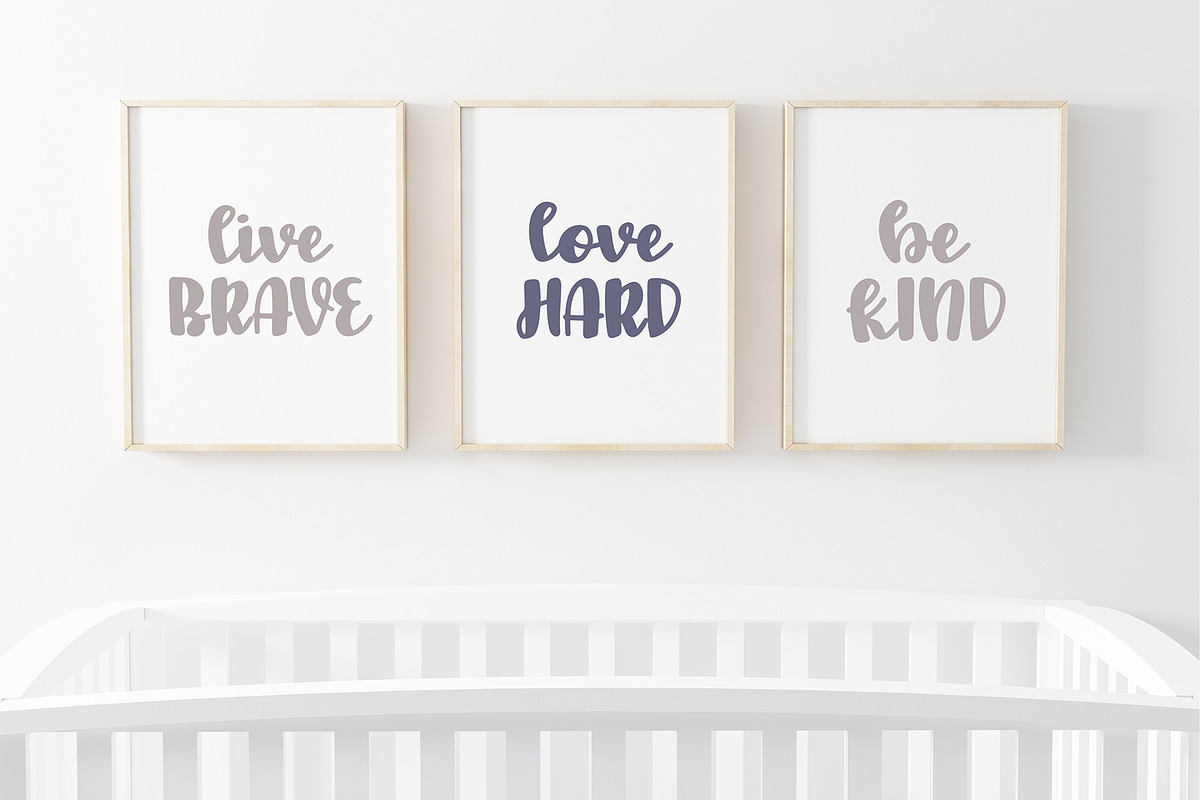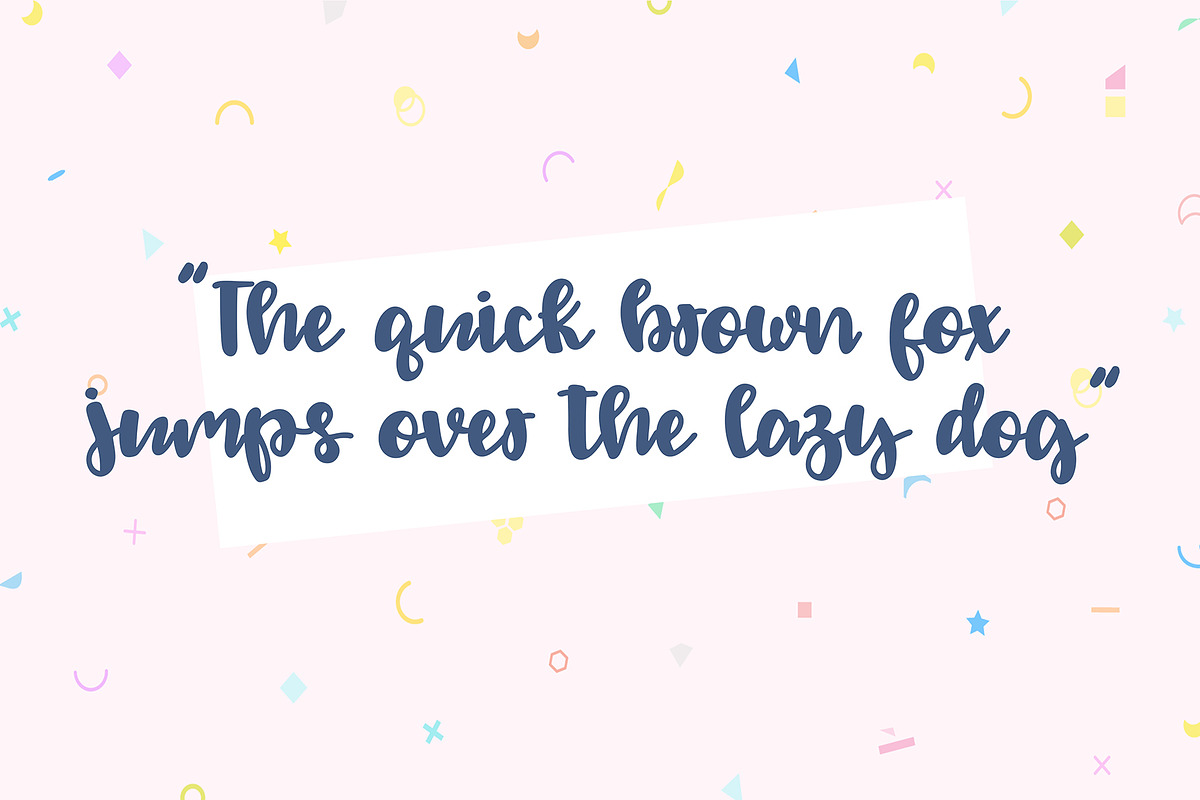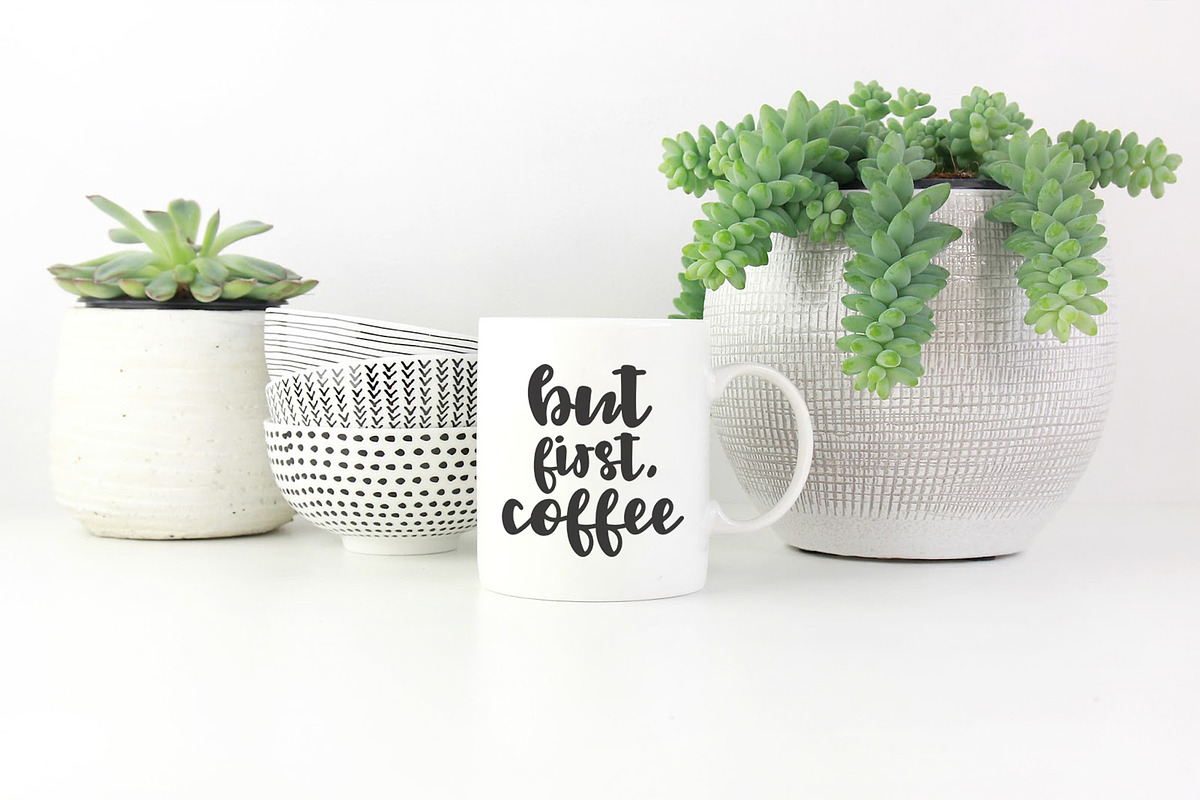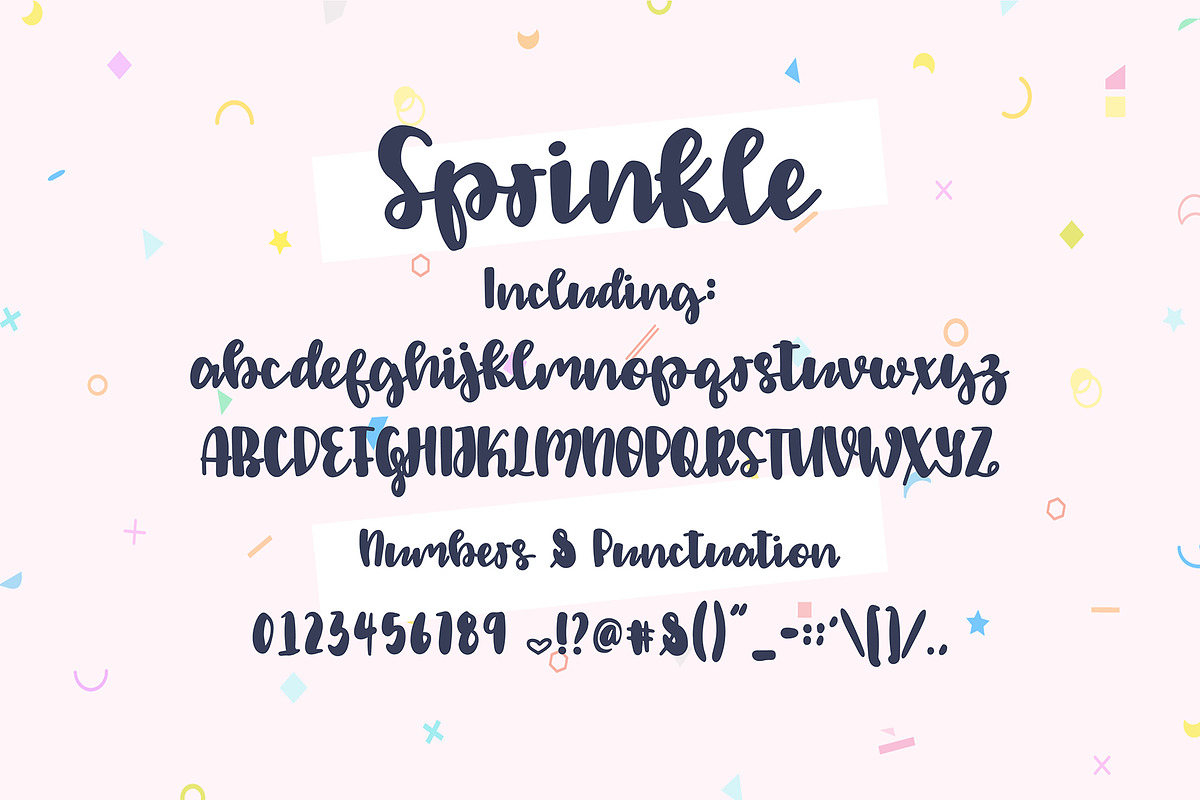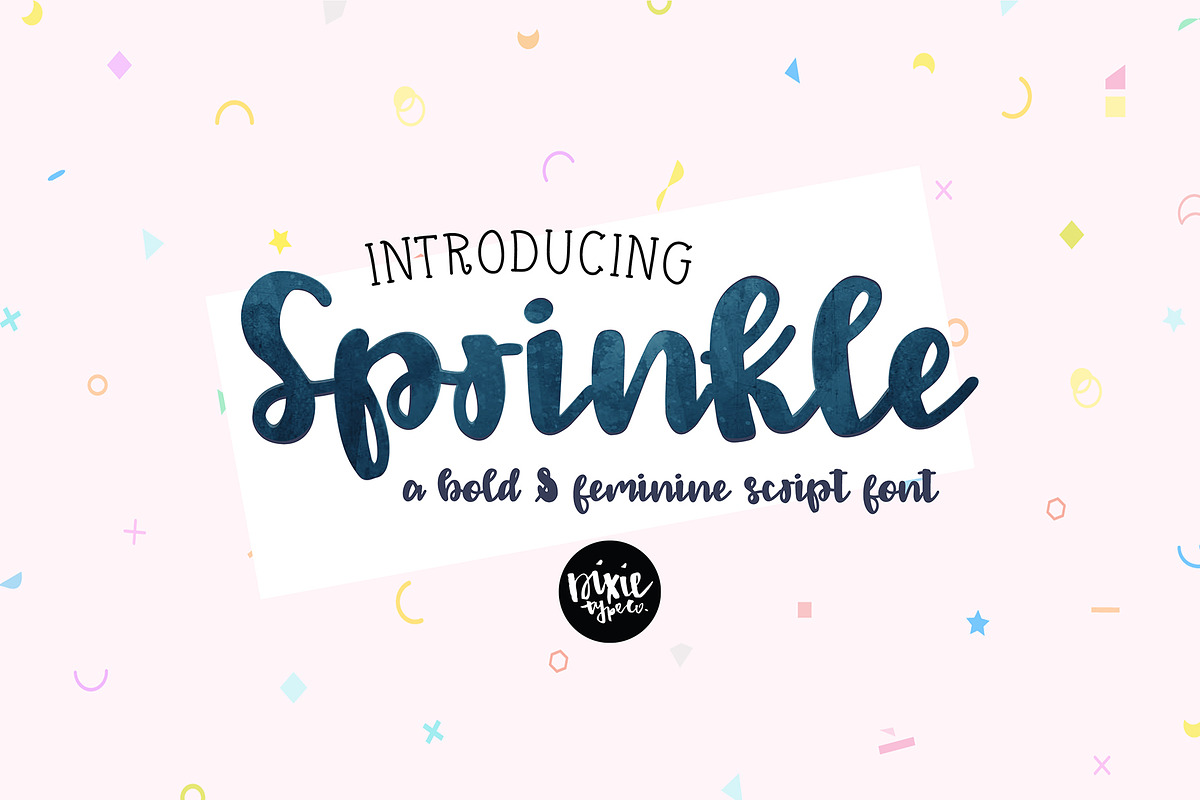
SPRINKLE Bold Script .OTF Font
{ A typographic font hand-lettered with love by Dixie Type Co. }
Sprinkle is a fun, BOLD, hand lettered script font.
Font includes: Upper and lowercase glyphs, numbers, and basic punctuation. This includes 89 total glyphs.